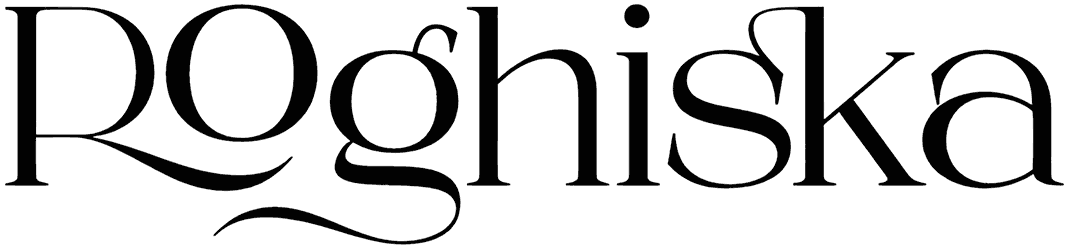
Roghiska Font
You can use a serif font like this elegant and stylish item for any modern or classic design and leave a lasting impact on your viewers. This elegant font has a timeless and captivating vibe that can be a perfect style for varied projects. Test the Roghiska font for your next project and see how unique the final draft will be.